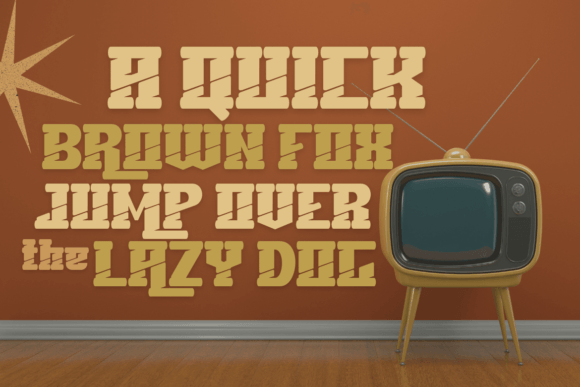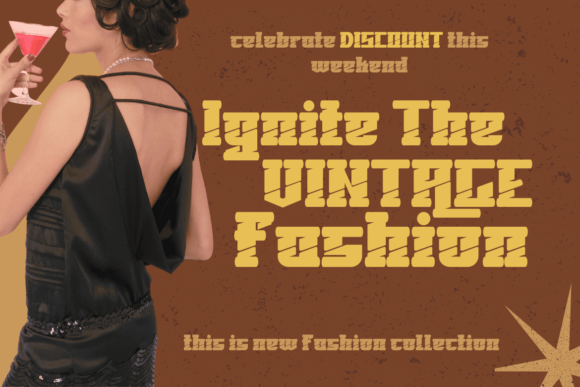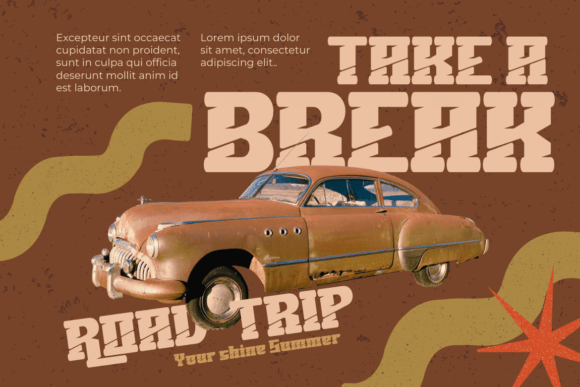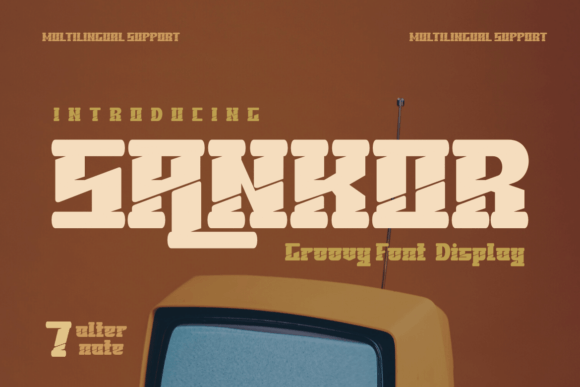
Introduction to Sankor Font
Introducing Sankor – a cool, groovy display font.
This font is perfect for any project that needs a modern twist on a classic design It’s unique, stylish, and fun.
Sankor Font offers exceptional quality and versatility, making it a valuable addition to your design toolkit. Whether you’re creating for personal projects or commercial use, Sankor Font delivers professional results.